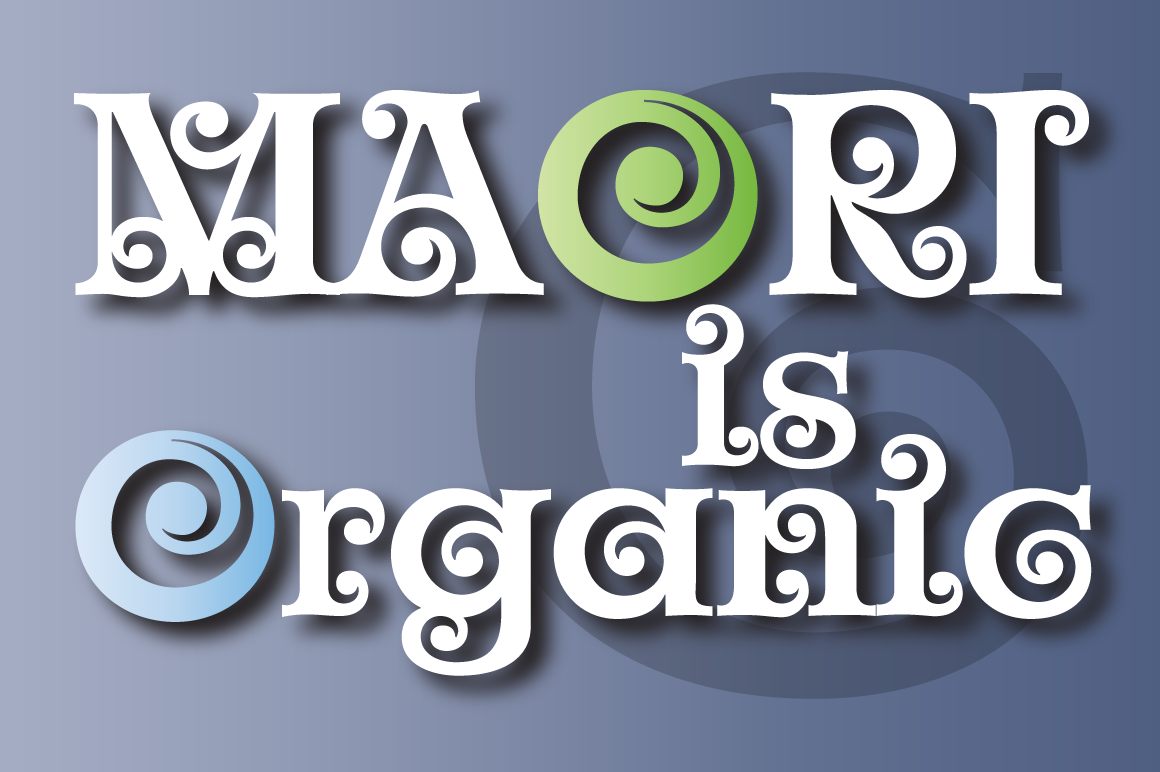
Discover the Unique Churchward Maori Font: A Blend of Latin and Maori Elements
The Churchward Maori font is a distinctive typeface that combines the elegance of traditional Latin glyphs with the ornate decorative elements of Maori art. Designed by the late Joseph Churchward, this font is part of a series of Maori-inspired typefaces that have gained popularity among designers and crafters looking for unique and culturally significant typography.
The Story Behind Churchward Maori
Joseph Churchward, a renowned typeface designer, was fascinated by the rich cultural heritage of New Zealand’s indigenous Maori people. He sought to create a typeface that would not only pay homage to Maori art but also make it accessible to a broader audience. The result was the Churchward Maori font, which infuses standard Latin glyph forms with traditional Maori decorative elements, creating a wildly organic design that is both visually striking and culturally meaningful.
The Churchward Maori font is characterized by its bold, expressive lines and intricate details. The typeface features a range of decorative elements, including curved shapes, spirals, and geometric patterns, which are reminiscent of traditional Maori carvings and tattoos. These elements are skillfully integrated into the standard Latin glyph forms, creating a unique and eye-catching design that sets Churchward Maori apart from other typefaces.
Expanded Character Set
To make the Churchward Maori font more versatile and practical for everyday use, we have expanded its character set to support standard Latin character sets. This means that designers and crafters can now use the font to create a wide range of projects, from signage and branding to digital media and print materials, without worrying about character limitations.
Pairing with Other Maori Fonts
If you’re interested in exploring other Maori-style fonts, we recommend checking out Churchward Ta Tiki, another typeface designed by Joseph Churchward. This font shares a similar aesthetic with Churchward Maori but has its own distinct character and charm. Pairing these fonts can add depth and visual interest to your designs, allowing you to create complex and engaging typographic compositions.
Applications for Designers and Crafters
The Churchward Maori font is a one-of-a-kind typeface that offers designers and crafters a unique opportunity to incorporate Maori cultural elements into their work. With its expanded character set and versatile design, this font is perfect for a wide range of projects, from branding and signage to digital media and print materials. Whether you’re looking to add a touch of cultural sensitivity or simply want to stand out from the crowd, Churchward Maori is an excellent choice.